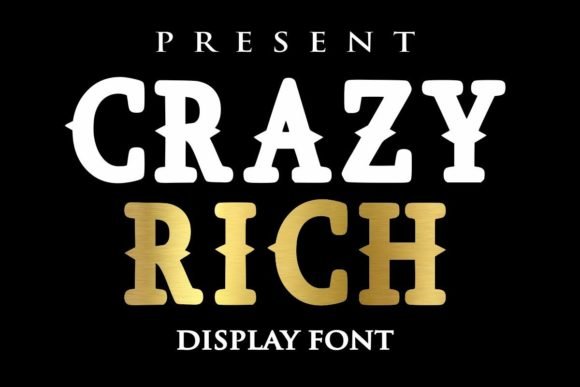
Crazy Rich Font: Elevate Your Creations
Have you ever stared at a blank canvas, eager to bring your creative vision to life, only to be stuck on the perfect font? We’ve all been there. But what if we told you there’s a font that can instantly elevate your design and leave a lasting impression? Enter the majestic Crazy Rich Font, a classic, bold, and thick lettered display font that’s about to become your new go-to.
Whether you’re a seasoned designer or just starting out, Crazy Rich Font has the potential to take your creations to the next level. Its versatility makes it perfect for a wide range of projects, from eye-catching headlines to stunning titles. With its bold and confident personality, this font is sure to make your designs stand out from the crowd.
Crazy Rich Font Key Features
- Font Family: Crazy Rich Font offers a unique blend of elegance and sophistication, making it perfect for luxury brands and high-end designs.
- Unique Characteristics: The font features intricate details, luxurious textures, and a touch of vintage charm, setting it apart from other luxury font options.
Crazy Rich Font Review
As a designer, I was initially drawn to “Crazy Rich Font” by its bold and luxurious name. Upon closer inspection, I found that it indeed delivers on its promise. ✨ The font is a stunning mix of classic elegance and modern flair, making it perfect for high-end branding and design projects.
The font’s flexibility is one of its standout features. ✨ It comes in a range of weights, from light to bold, making it suitable for various typography needs. The font also includes a variety of styles, including script and condensed options, which add to its versatility.
However, I did encounter some limitations. ⚠️ The font’s ligatures can be a bit too aggressive at times, which may affect readability in certain contexts. Additionally, the font’s condensed styles can appear slightly cramped, which may require careful adjustment in certain designs.
Overall, I would recommend “Crazy Rich Font” to designers looking for a luxurious and versatile font. While it may have some limitations, its strengths far outweigh its weaknesses, making it a valuable addition to any design toolkit.
- Use it to add a touch of elegance and sophistication to your designs.
- Pair it with other elegant fonts to create a unique and eye-catching look.
Crazy Rich Font is perfect for:
- High-end marketing materials and branding.
Playfair Display is an elegant, high-end serif font perfect for luxury brands and high-end designs. It features intricate details and a sophisticated feel, making it ideal for use in headings and titles.
Comparison to Crazy Rich Font: While both fonts are luxurious and high-end, Playfair Display has a more classic and traditional feel, whereas Crazy Rich Font is more modern and edgy.
Didot is a classic, elegant serif font that exudes sophistication and luxury. It features a refined, high-end feel, making it perfect for use in fashion, jewelry, and luxury brands.
Comparison to Crazy Rich Font: Didot has a more classic and timeless feel, whereas Crazy Rich Font is more modern and trendy. Didot is also more versatile and can be used in a wider range of designs.